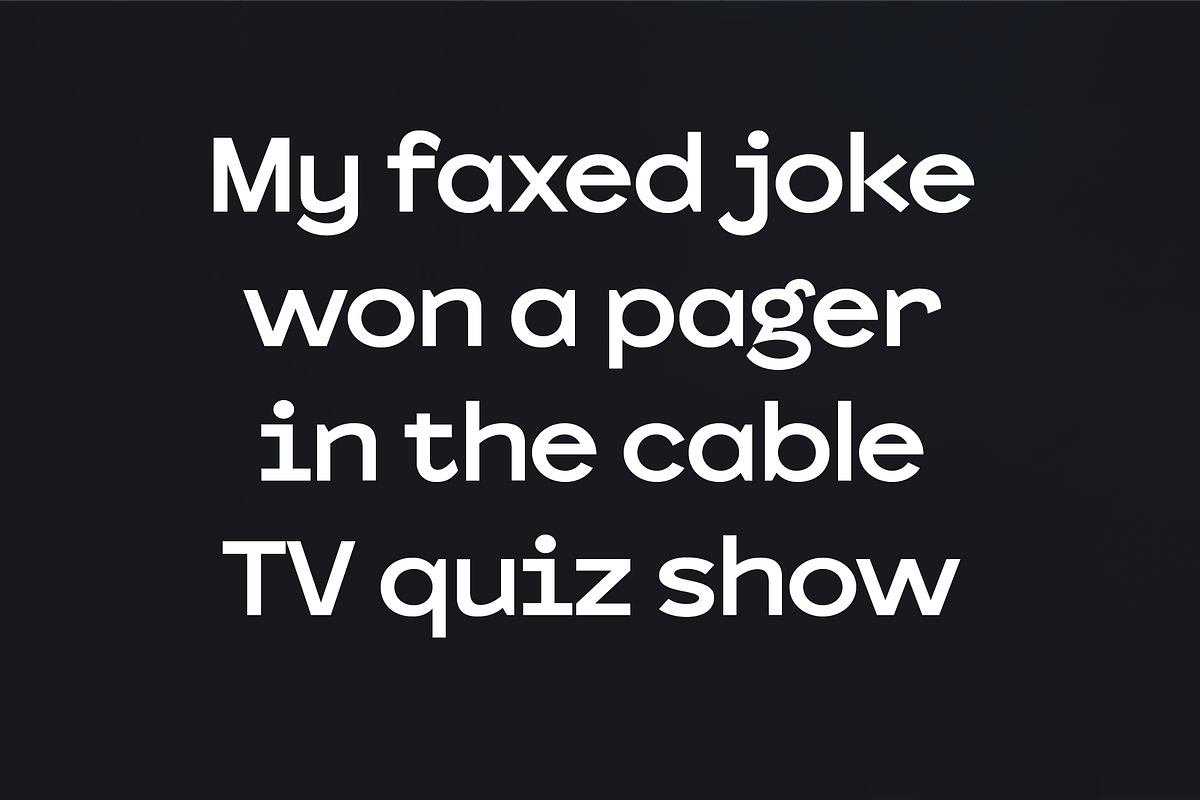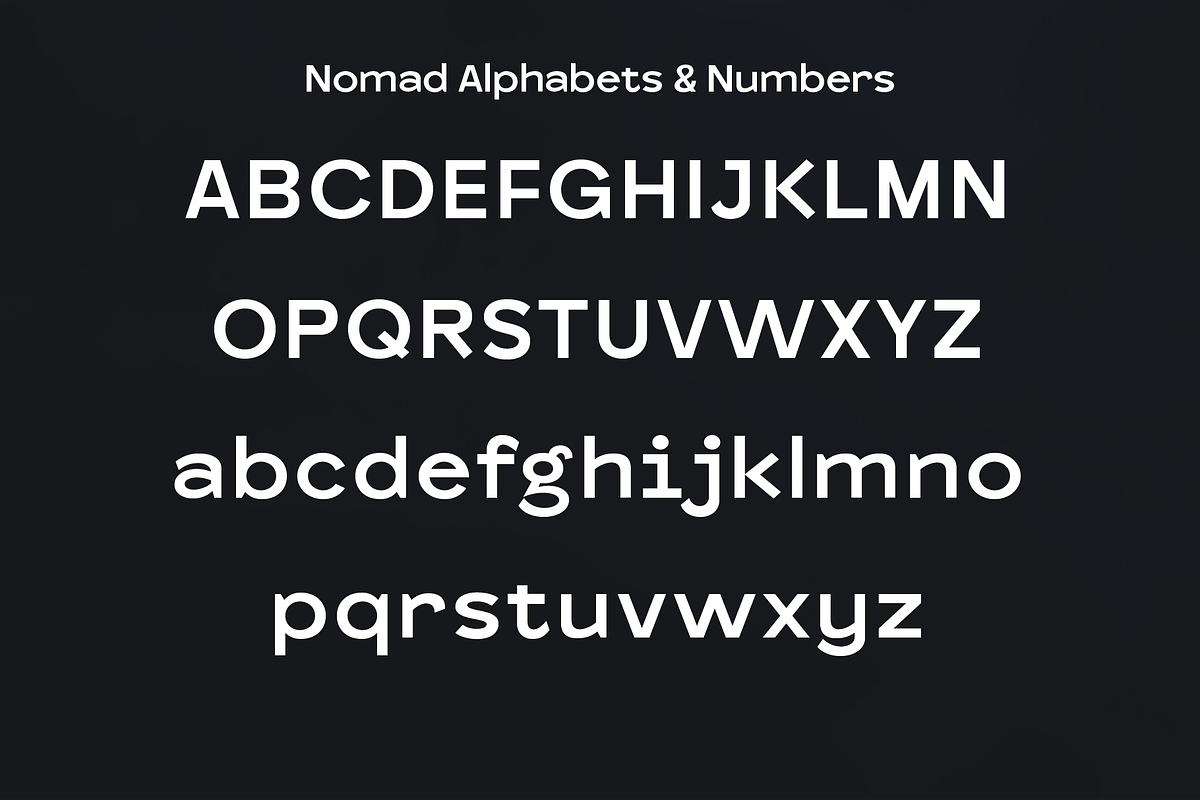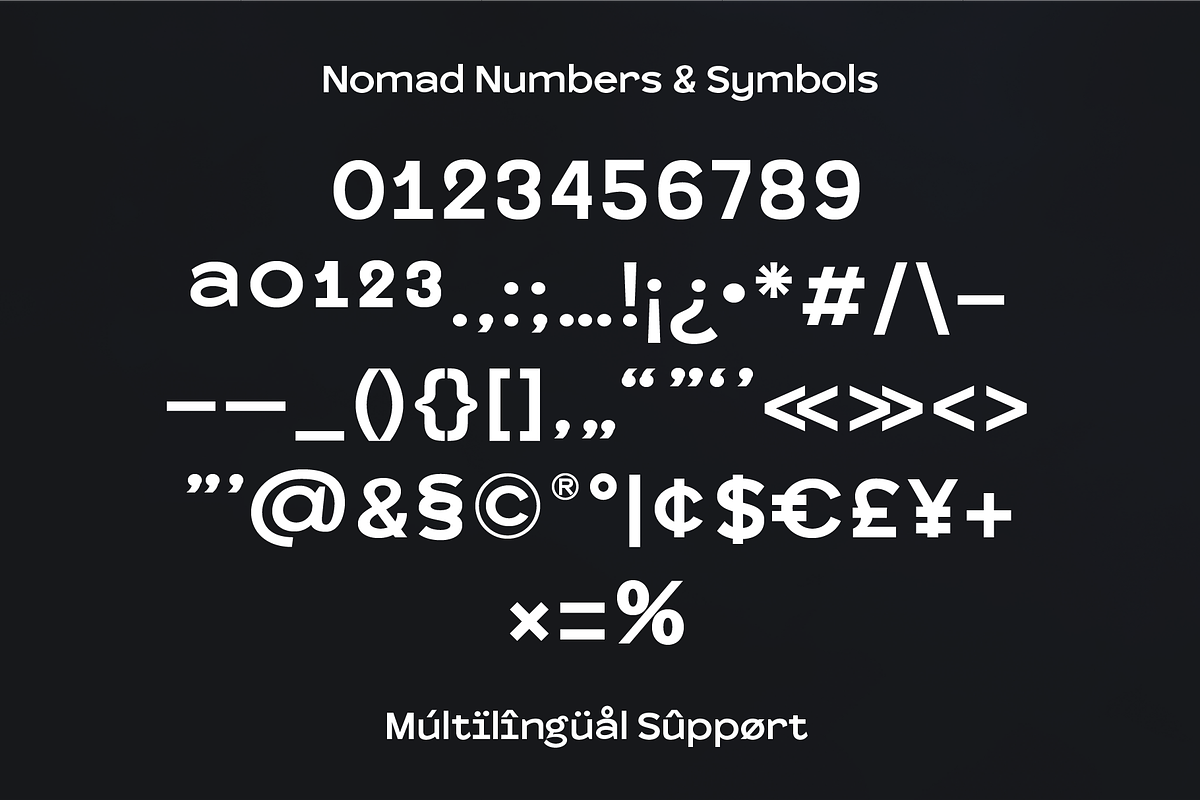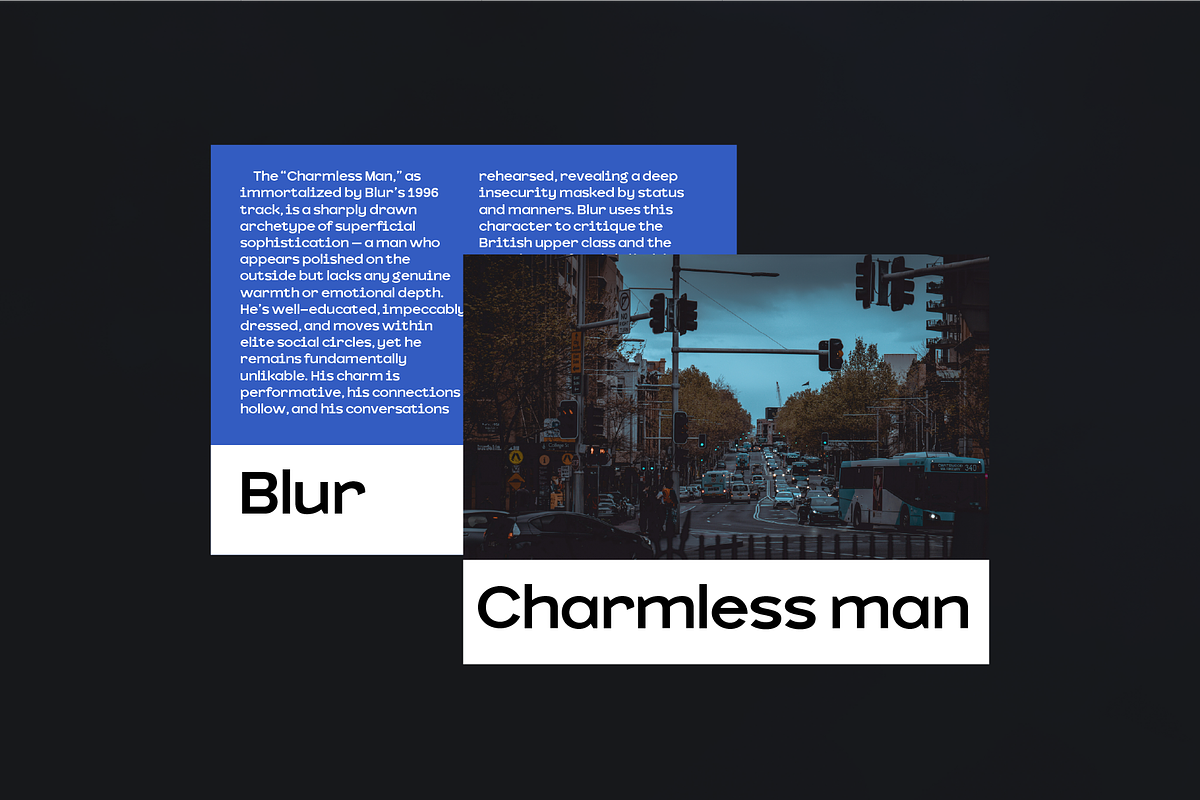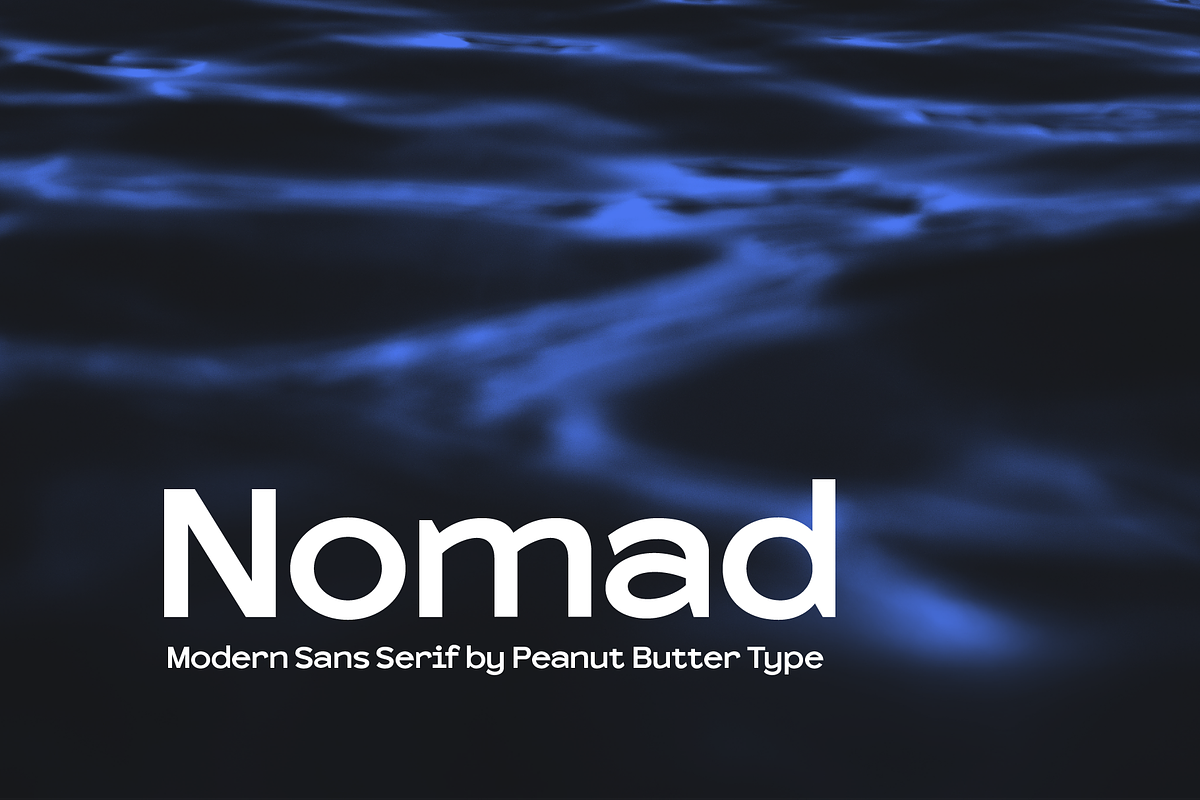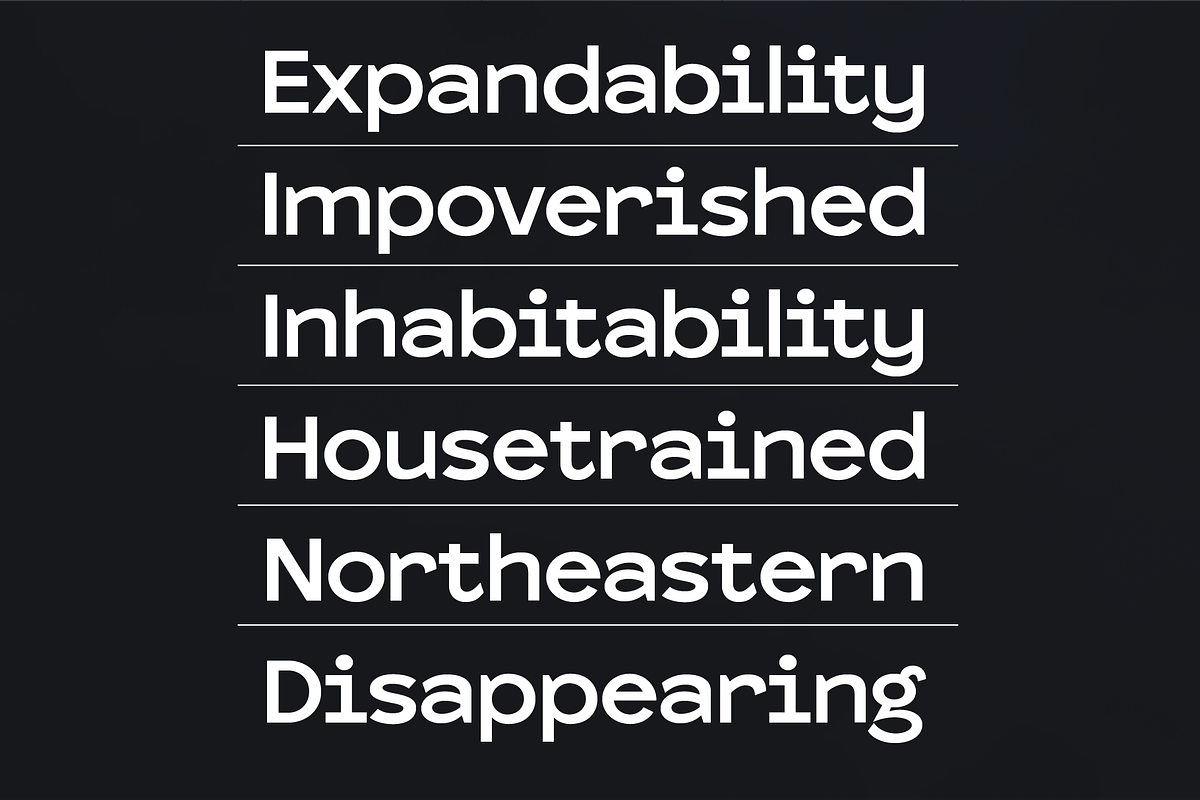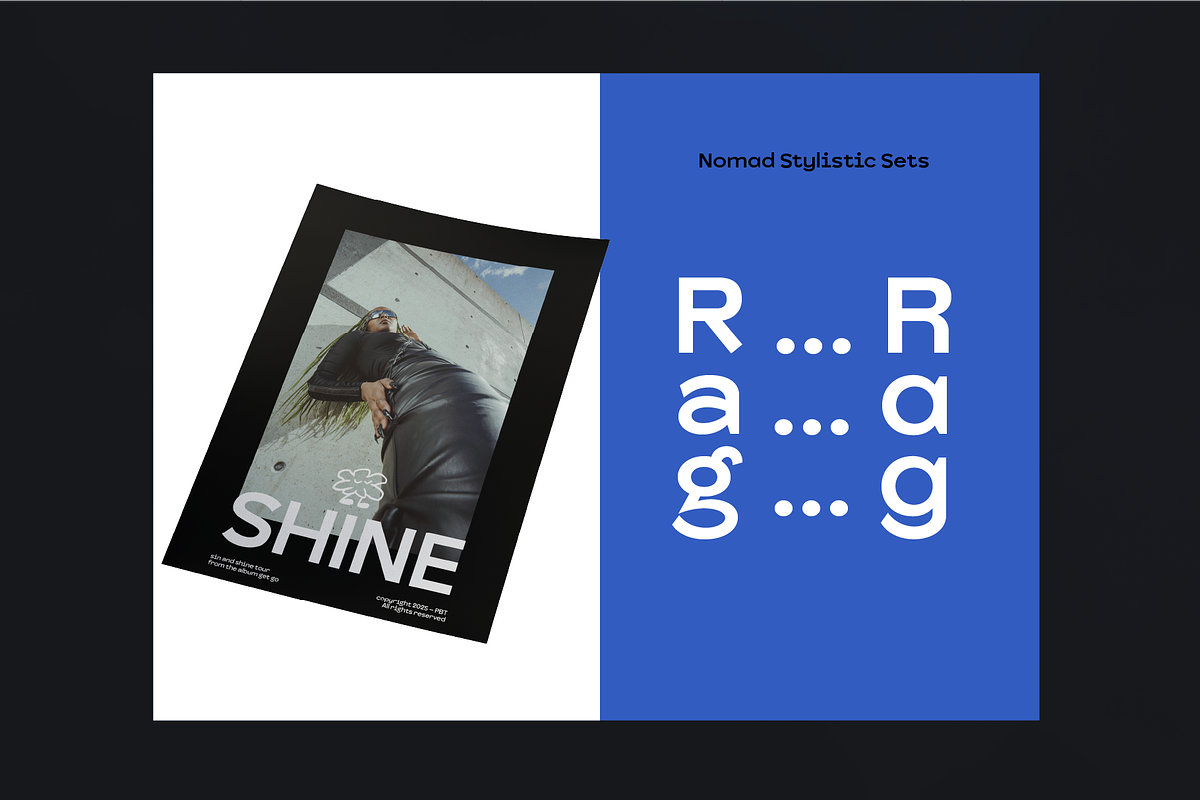
Nomad Modern Sans Serif
Discover Nomad, the modern sans-serif typeface that blends clean elegance with timeless versatility. Designed for creators who crave simplicity without sacrificing personality, Nomad delivers crisp lines, balanced spacing, and a contemporary edge that elevates any project. Whether you're building a bold brand identity, designing sleek editorial layouts, or crafting a standout website, Nomad adapts effortlessly—making your message not just seen, but remembered. Let your words travel far with the confident clarity of Nomad.